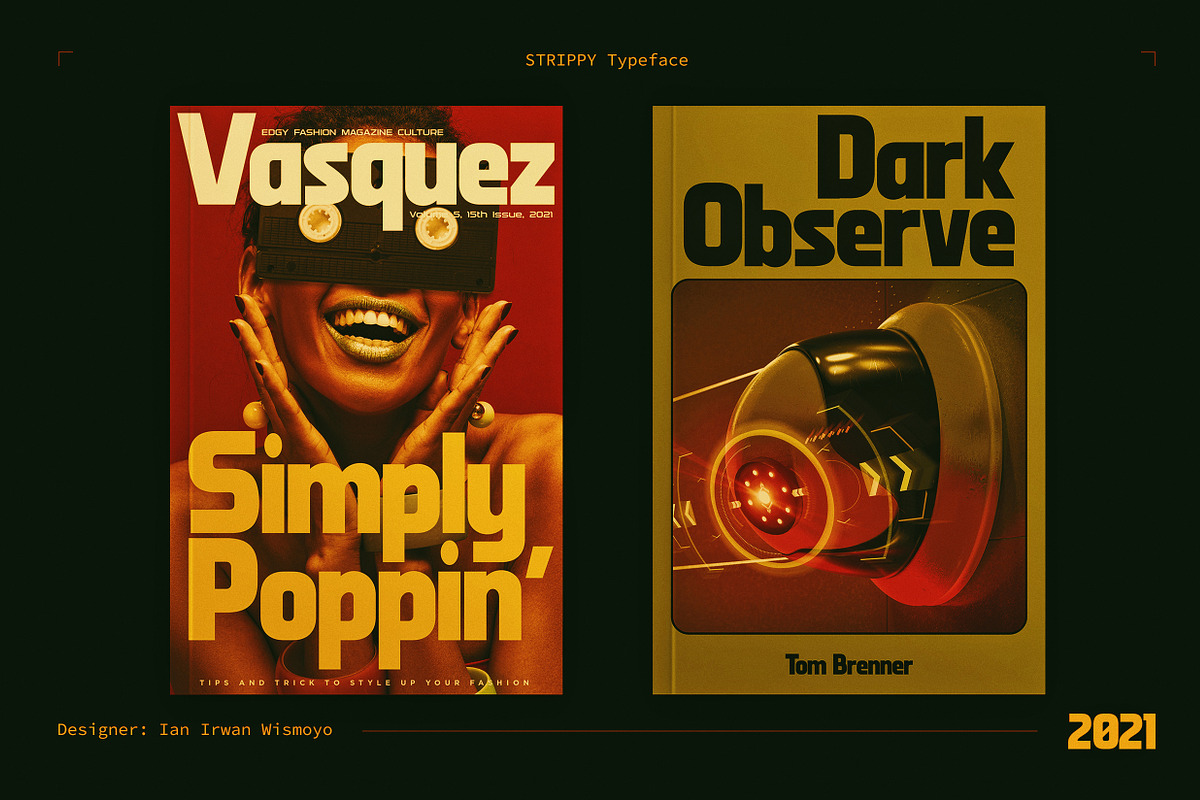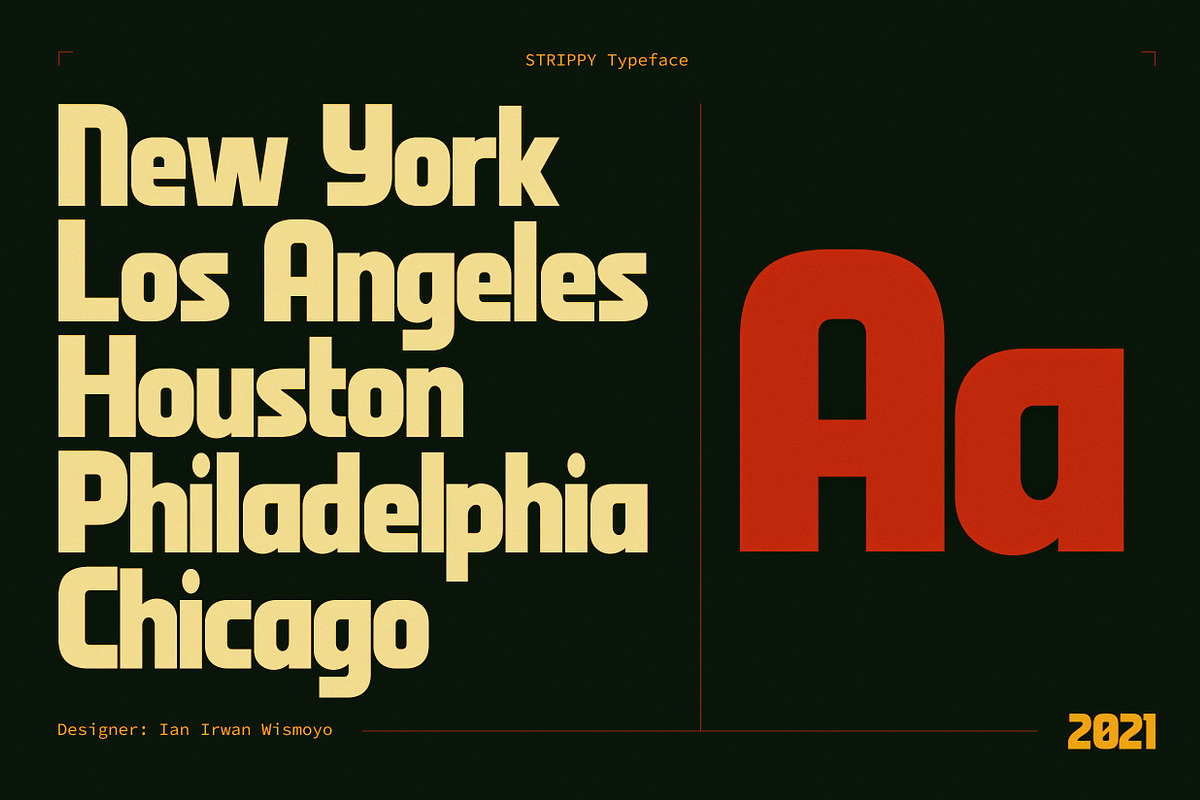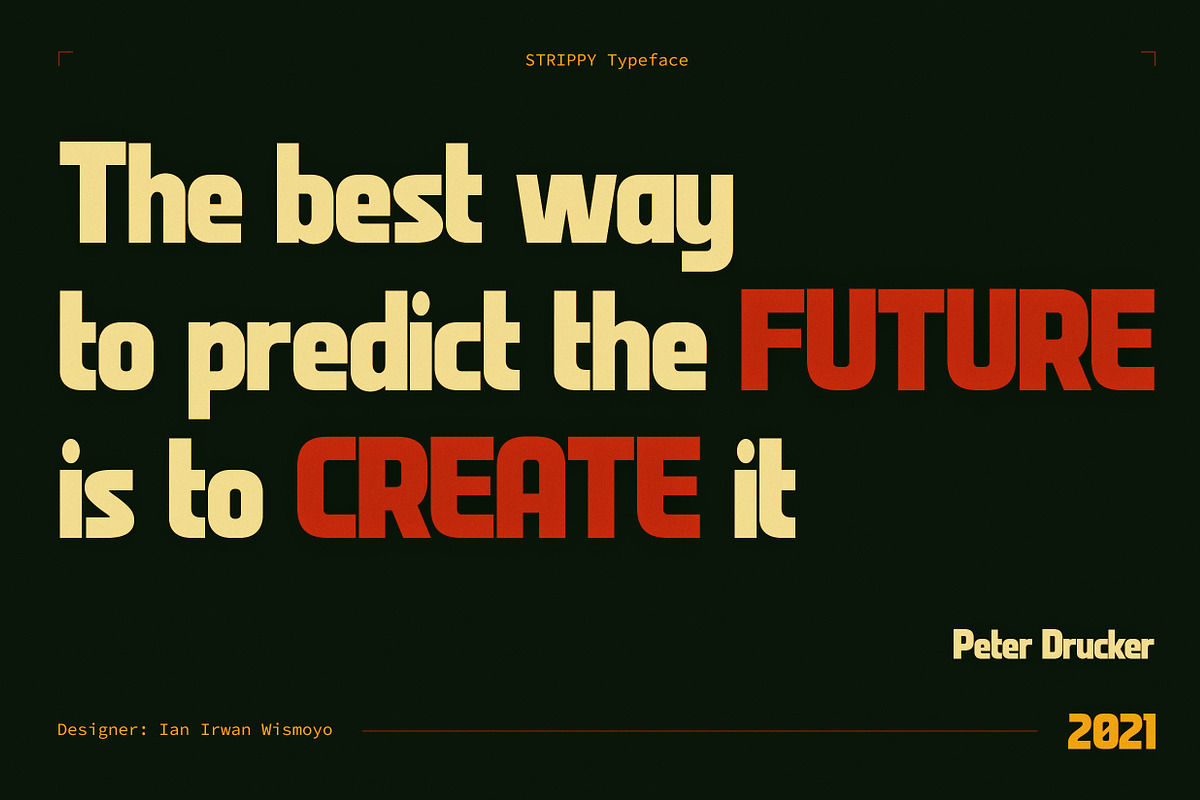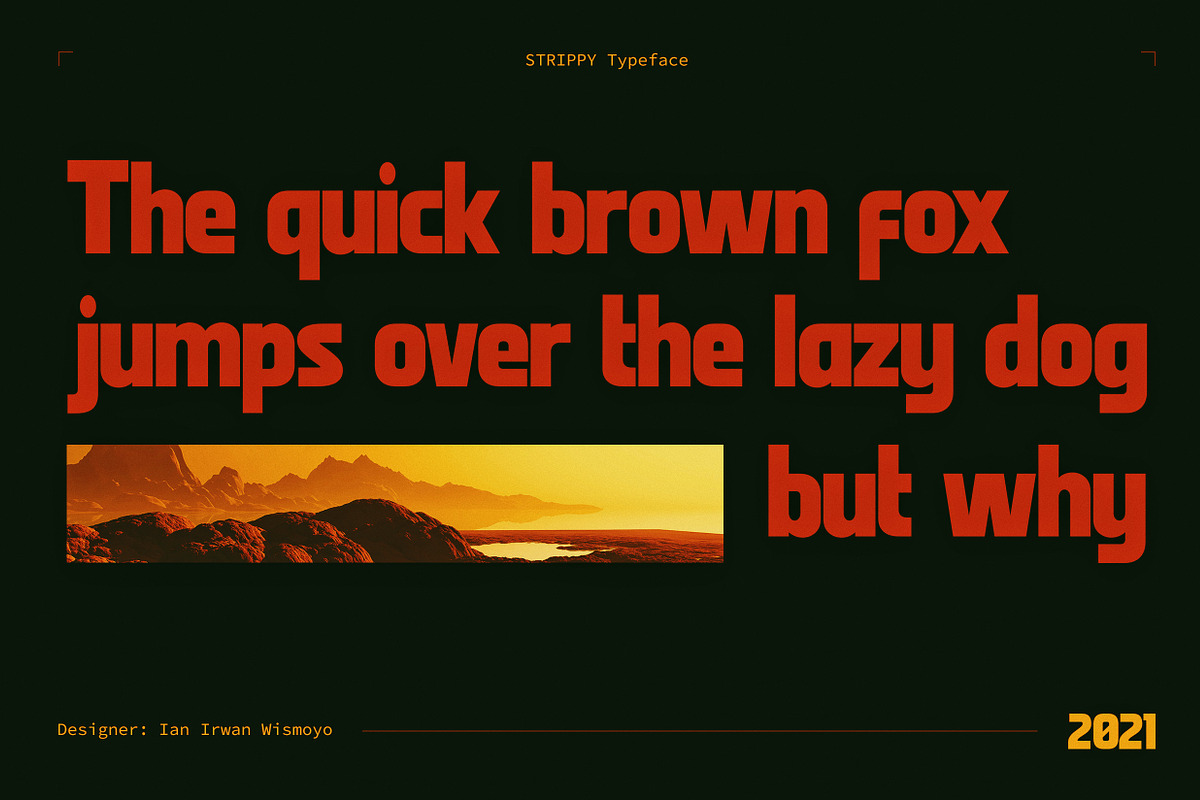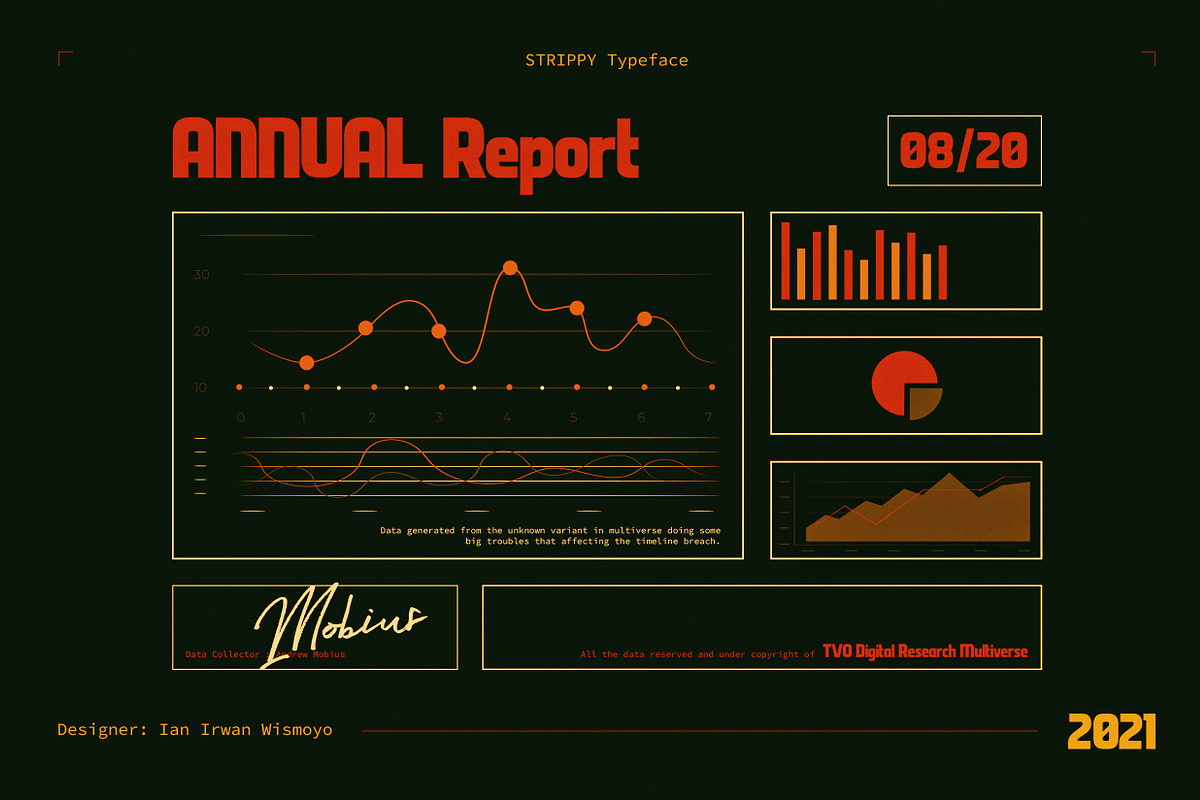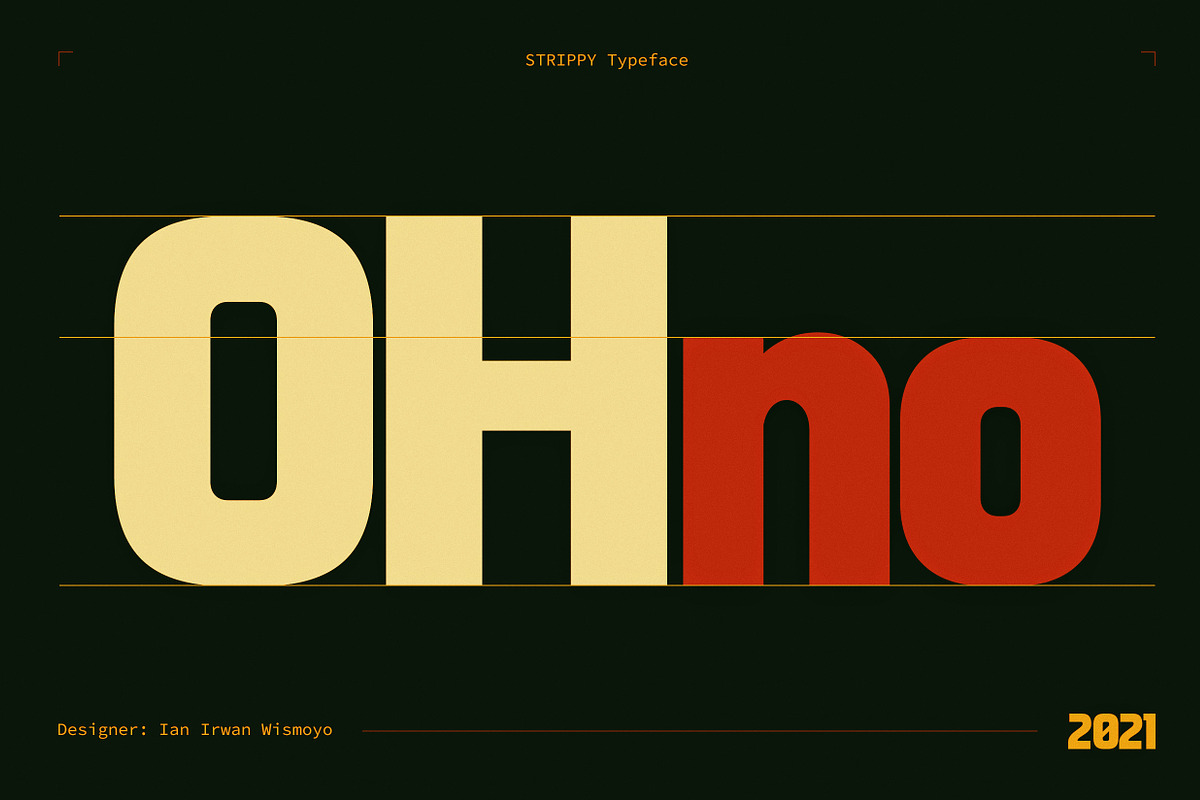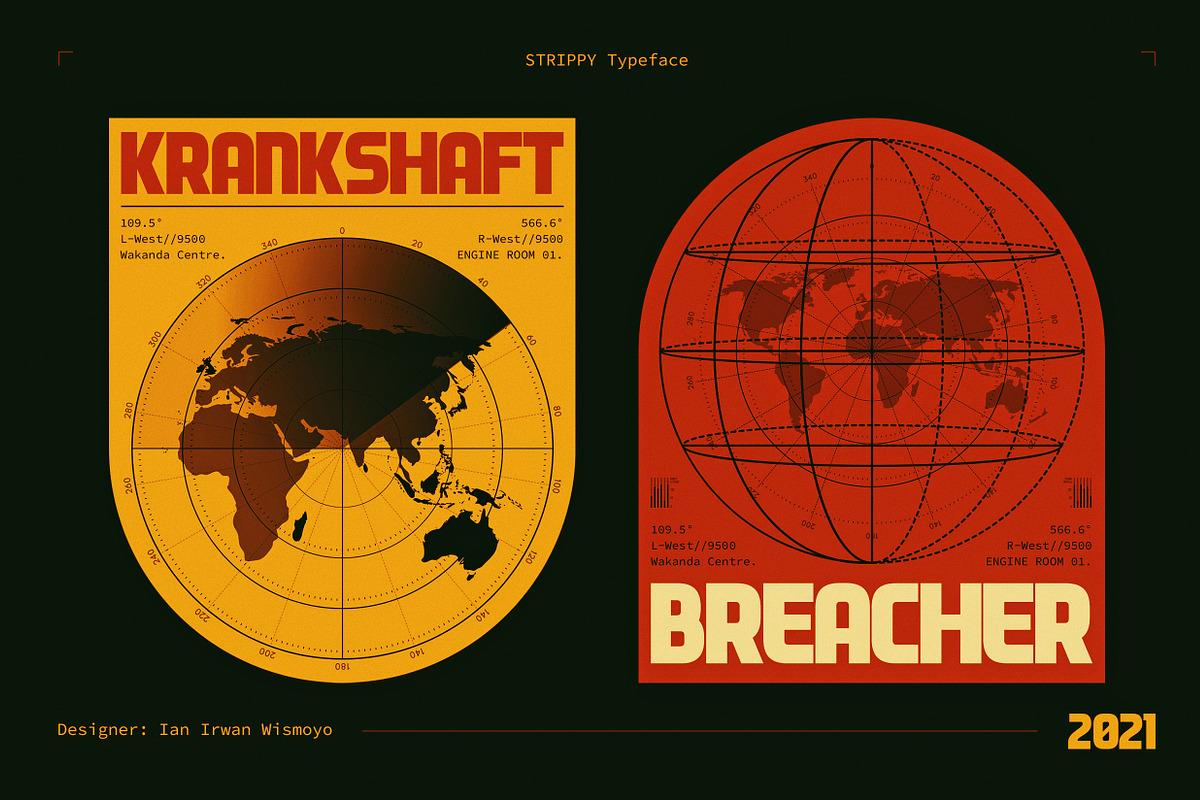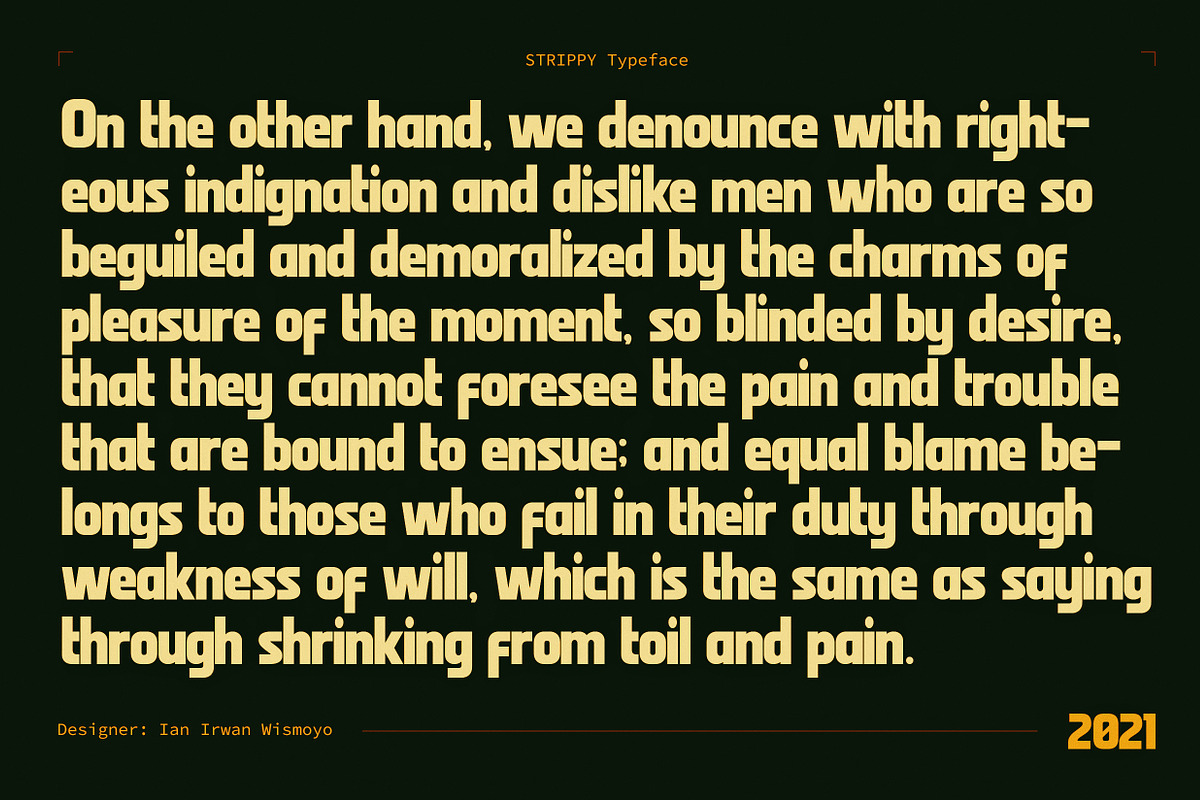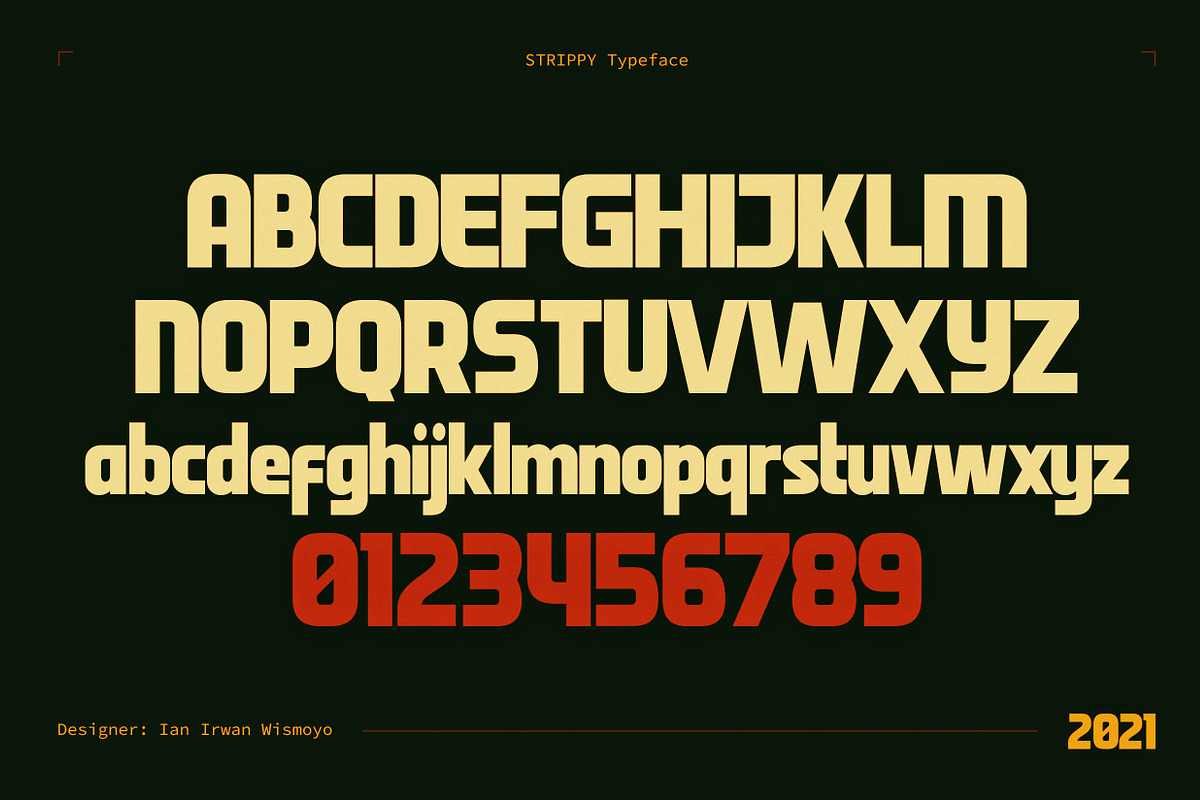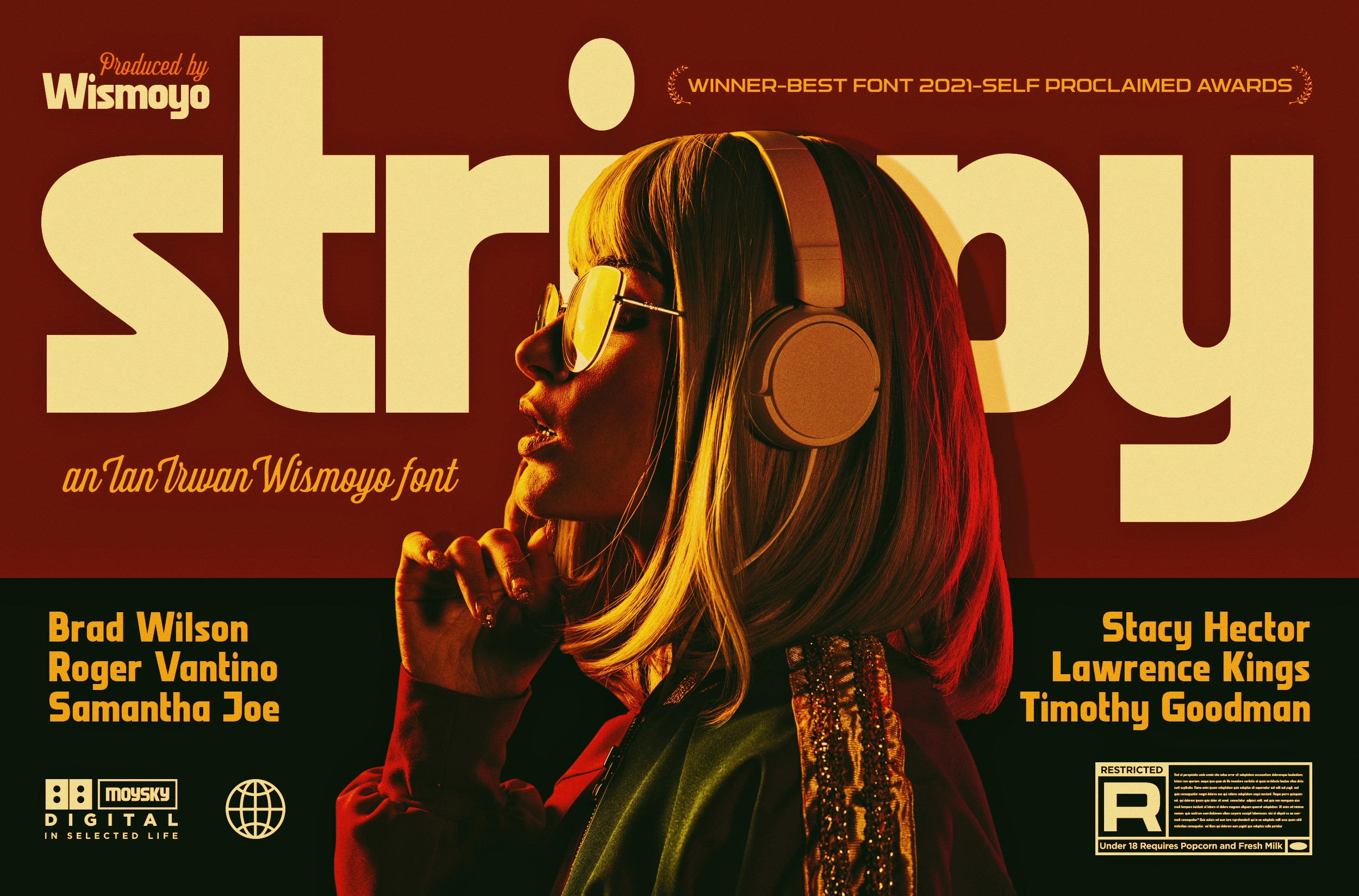
Strippy - Bold Futuristic Fonts
Inspired from the bold and loud visual statements from the 90s poster and graphic design trend, makes Strippy can't hold itself to be born in this universe.
A clean, square, and bold form of body, makes Strippy is the simple way to go to shot your statement louder and wider.